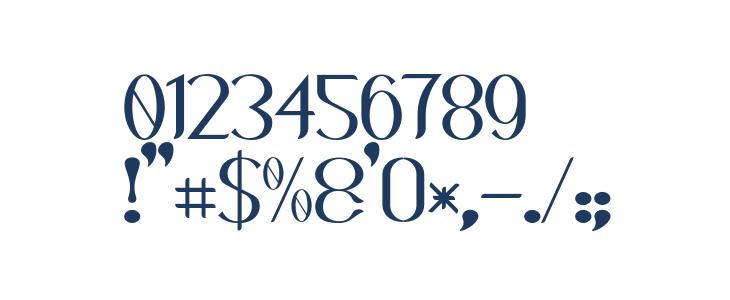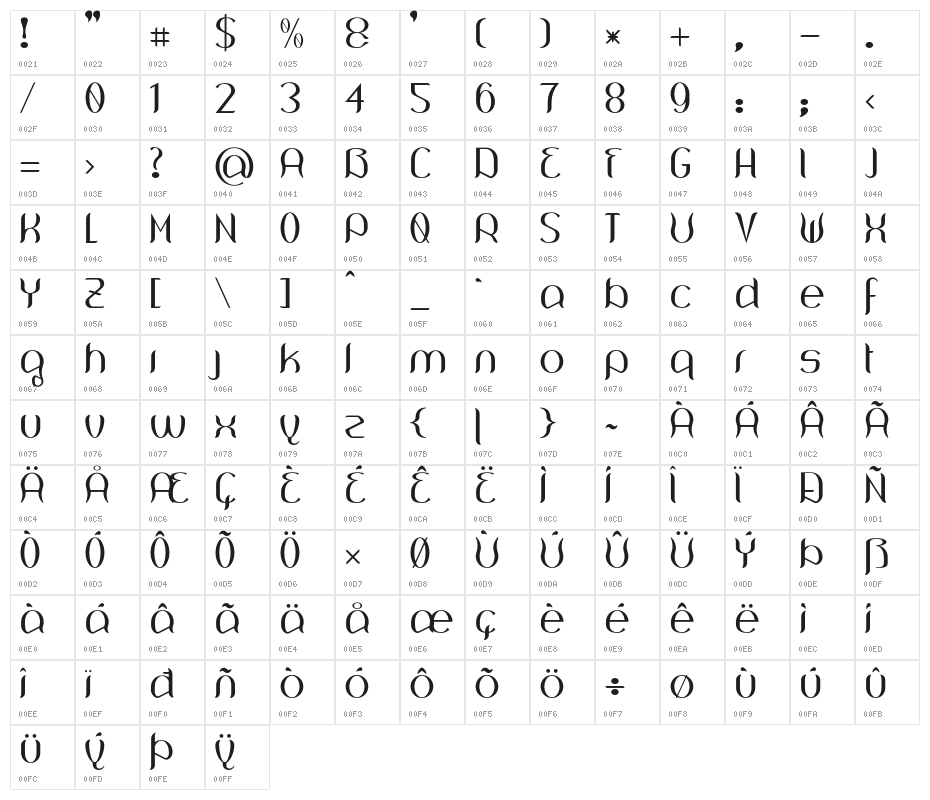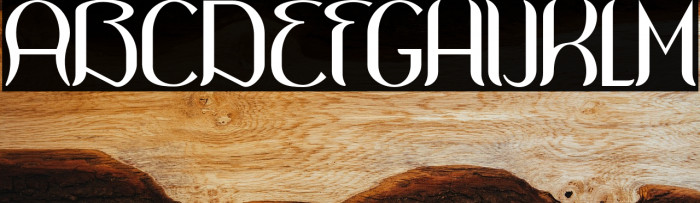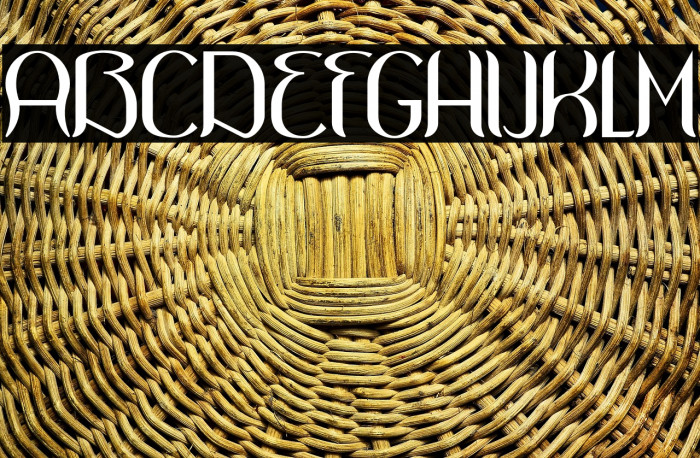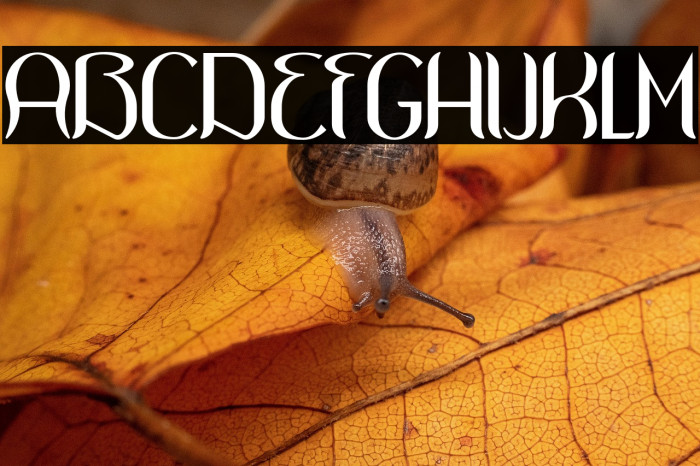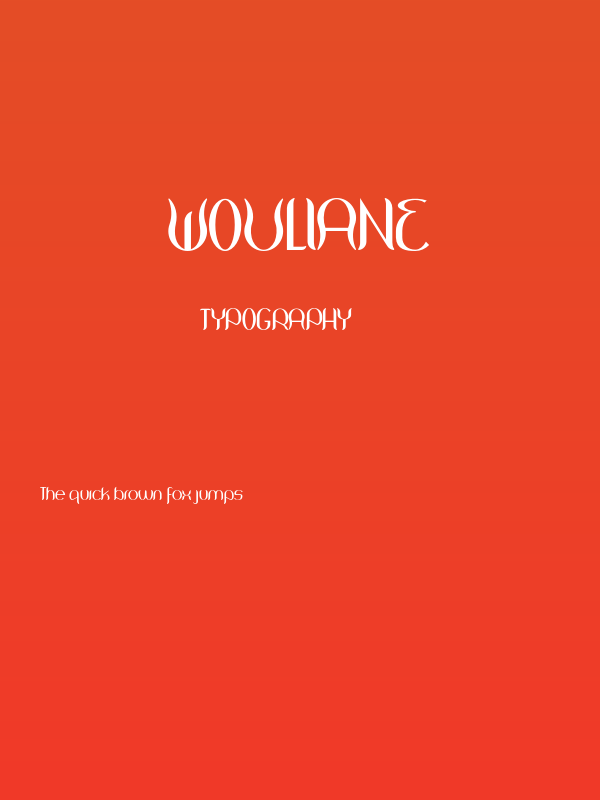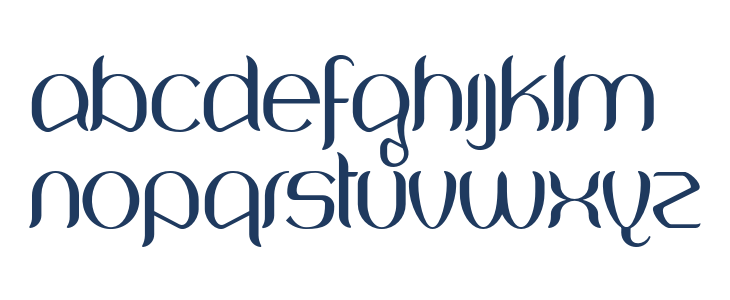
Wouliane Font
Wouliane Description
This font features a unique blend of modern and decorative elements, characterized by its distinct, flowing curves and sharp edges. The uppercase letters exhibit a bold, artistic flair with elongated strokes and angular cuts, creating a sense of movement and elegance. The lowercase letters maintain a cohesive style, with smooth transitions and a slightly more subdued appearance. Numbers and special characters are designed to complement the overall aesthetic, with consistent line weights and a harmonious balance between form and function. This font's artistic nature makes it suitable for creative projects that require a touch of sophistication and style.